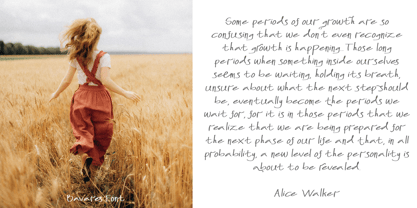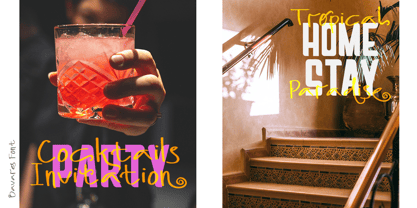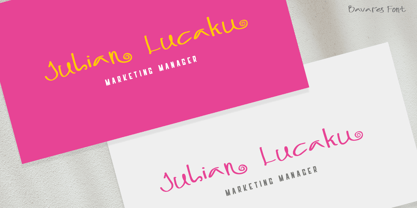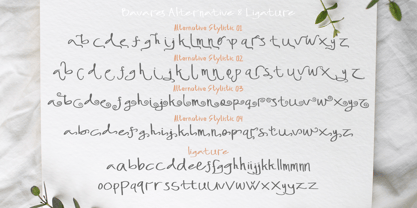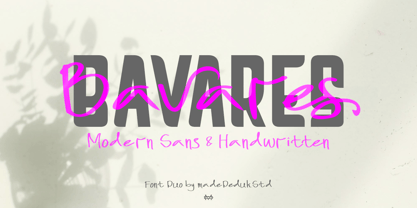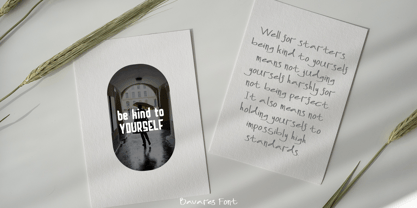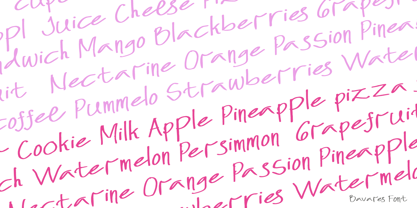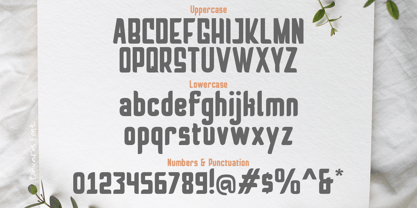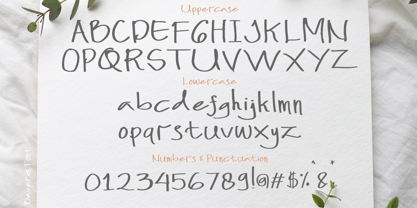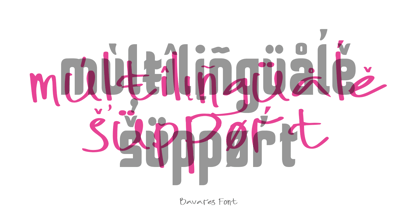
Bavares
by madeDeduk
The Bavares Font Family was designed by madededuk and published by madeDeduk. Bavares contains 2 styles and family package options. More about this family
Bavares is a romantic font duo featuring a hand written paired with a modern sans. This complementary combination brings both boldness and softness to your designs, perfect for creating timeless, stylish visuals. Use this font to elevate your projects with its timeless appeal and stylish versatility.